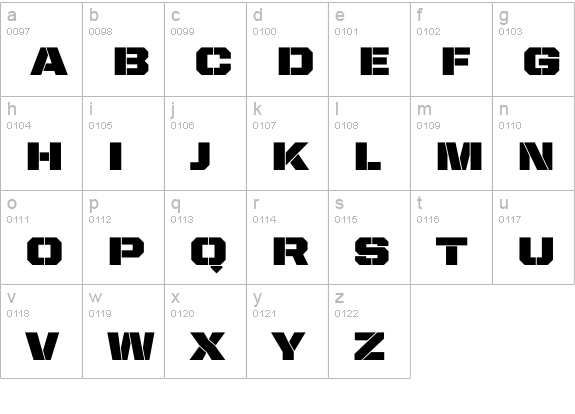
United Sans SemiExt Stencil Font Details
United Sans SemiExt Stencil font is a modern and versatile typeface that combines the clarity of a stencil design with the sleekness of a sans-serif font. With its clean and geometric lines, this font exudes a sense of professionalism and sophistication, making it suitable for a wide range of design projects. The semi-extended proportions of this font give it an elegant and balanced appearance, making it perfect for both headings and body text. Its stencil design adds a unique touch, creating a stylish and eye-catching visual impact. Whether you're designing a logo, a poster, or a website, United Sans SemiExt Stencil font will add a touch of modernity and sophistication to your project. One of the best things about United Sans SemiExt Stencil font is that it is available for free download at FontsMarket.com. This means that you can easily access and use this font in your design projects without any cost. Its free availability makes it a great choice for designers on a budget or those who simply want to experiment with different fonts. Despite being freely available, United Sans SemiExt Stencil font does not compromise on quality. Its carefully crafted letterforms ensure legibility and readability, even at smaller sizes. The font also comes with a comprehensive set of characters, including uppercase and lowercase letters, numerals, punctuation marks, and various special characters, making it suitable for multilingual projects. In conclusion, United Sans SemiExt Stencil font is a must-have for designers looking for a contemporary and versatile typeface. Its combination of stencil design and sans-serif aesthetics makes it both visually striking and functional. And the fact that it is freely available for download at FontsMarket.com only adds to its appeal. So why wait? Download United Sans SemiExt Stencil font today and add a touch of modern sophistication to your design projects.